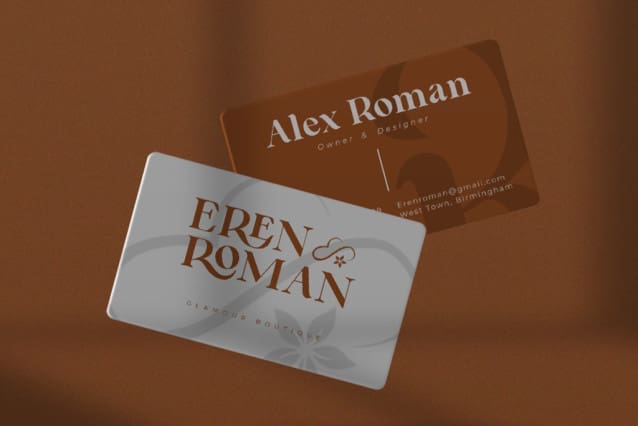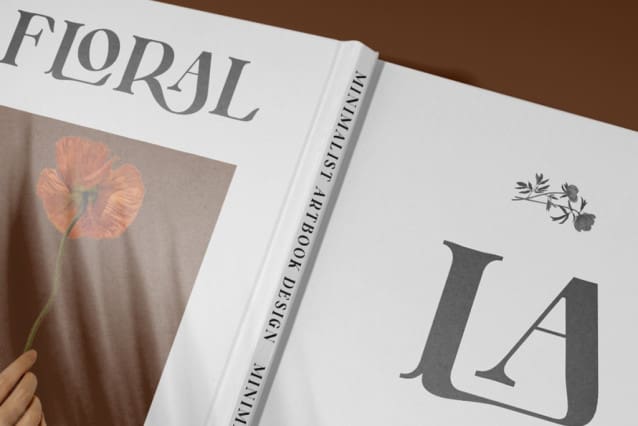
Rovin Font
Rovin Font – a captivating blend of Old Style and Modern Serif, meticulously crafted to exude timeless elegance and contemporary sophistication. This unique serif font seamlessly merges classic charm with a modern twist, creating a versatile typeface ideal for a myriad of design applications. It’s perfect font for branding, logo design, film covers, fashion brands, or other stylish endeavors, Rovin elevates the visual narrative with its refined aesthetics and versatile appeal.